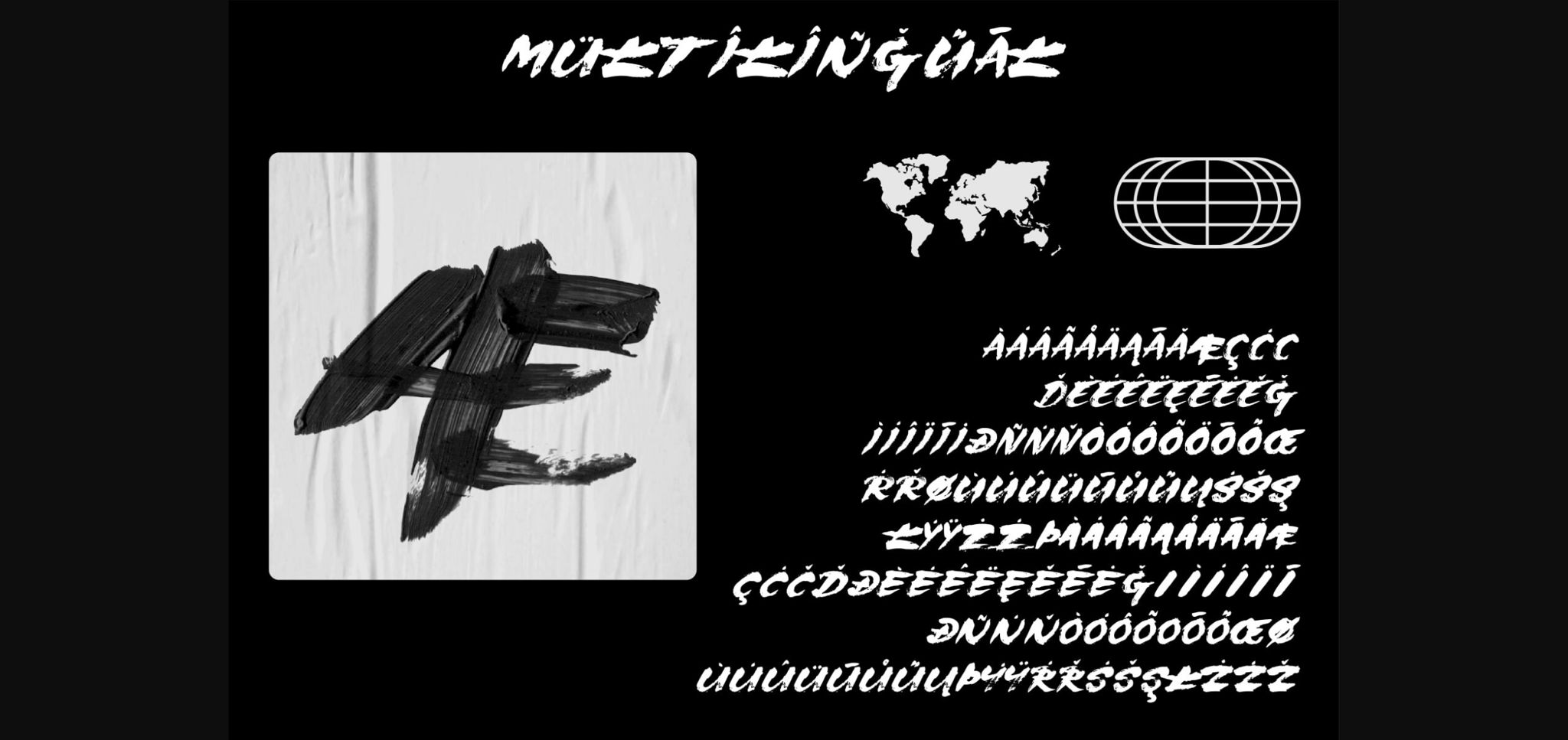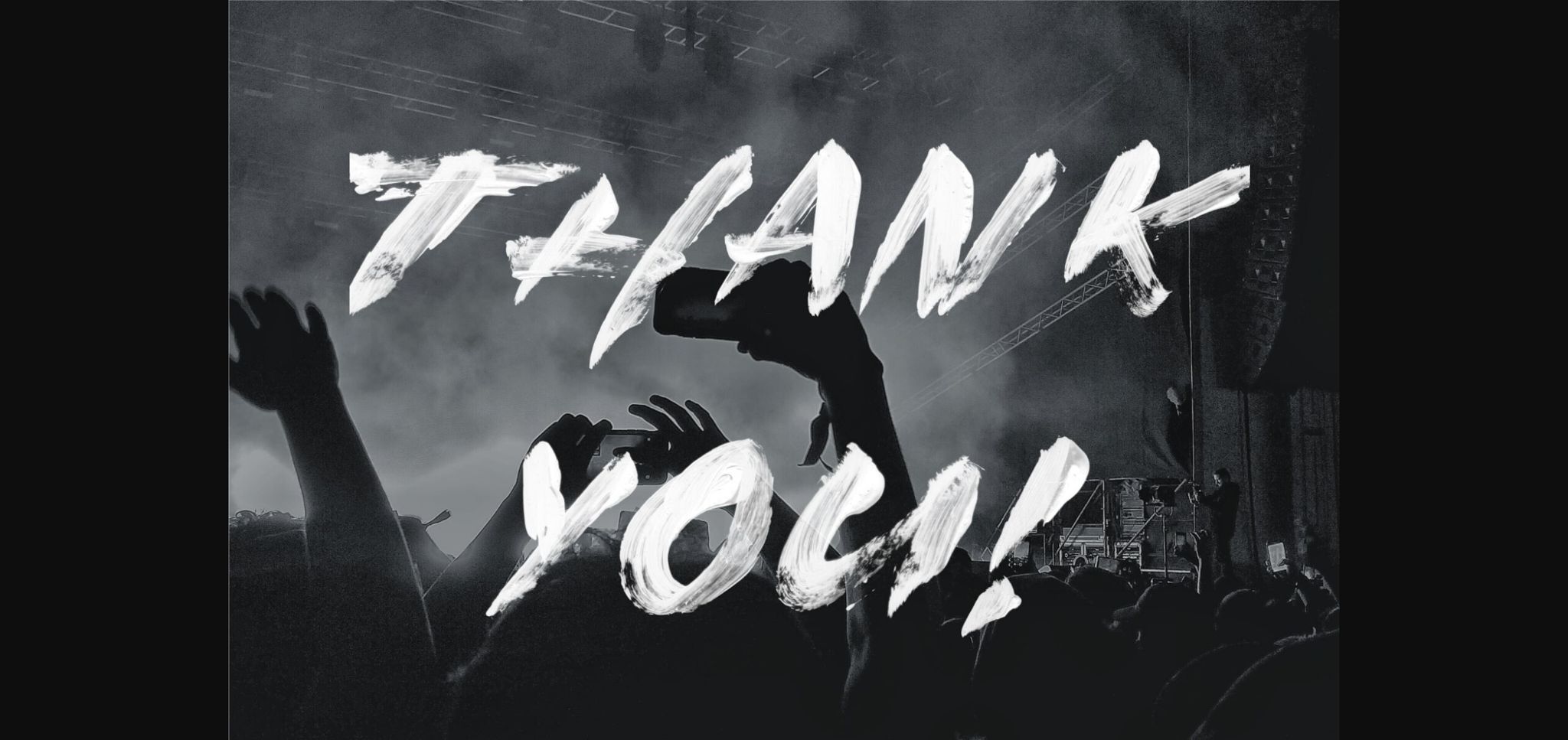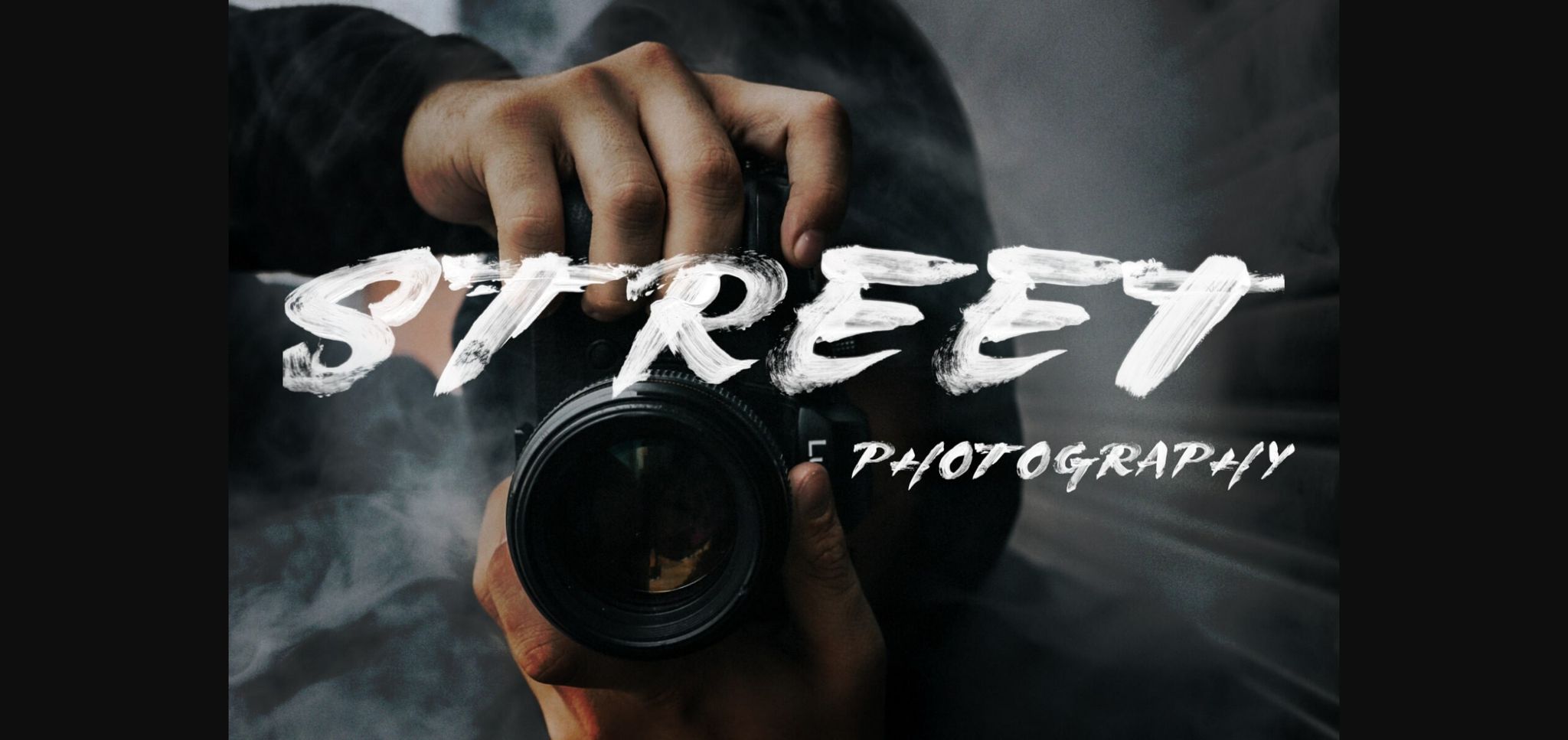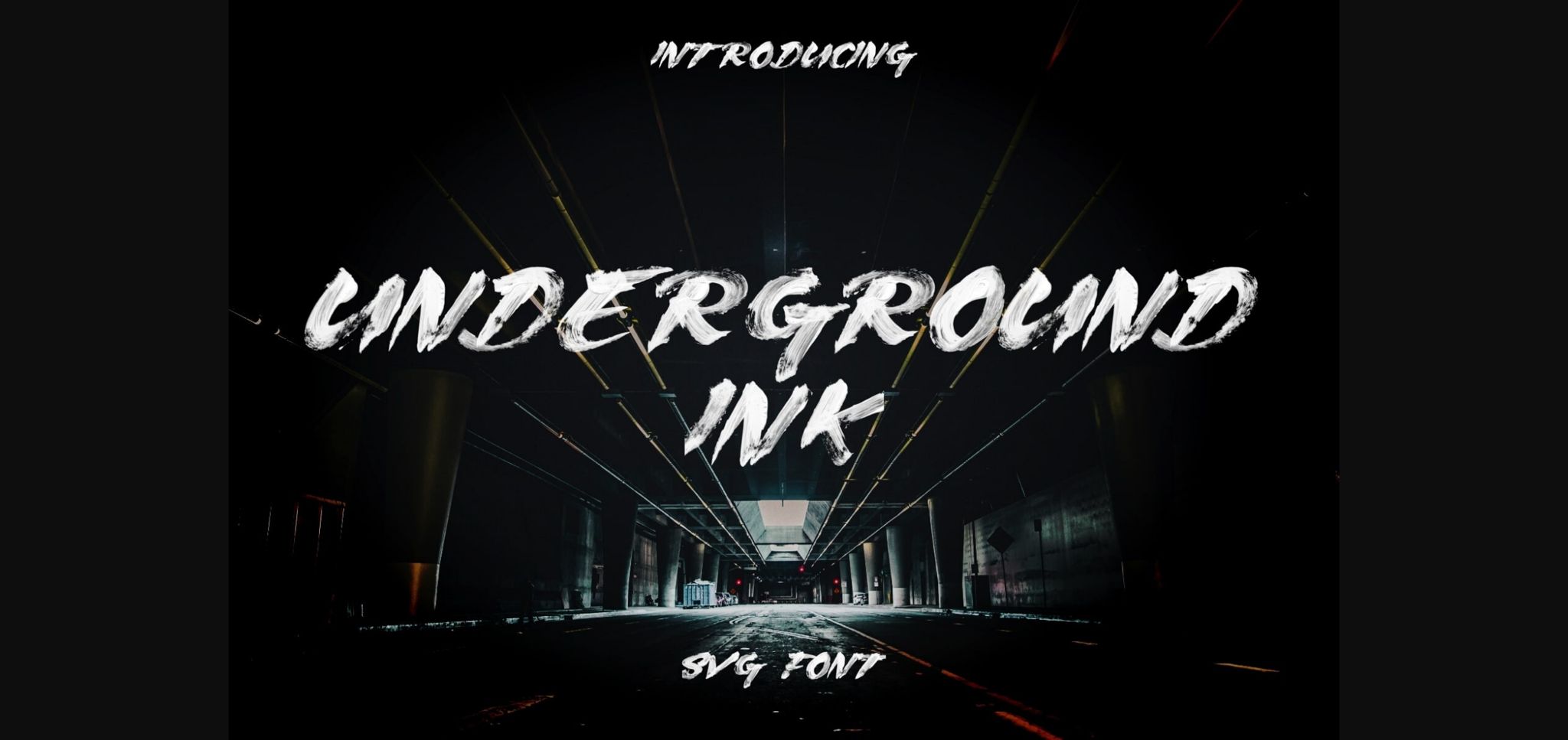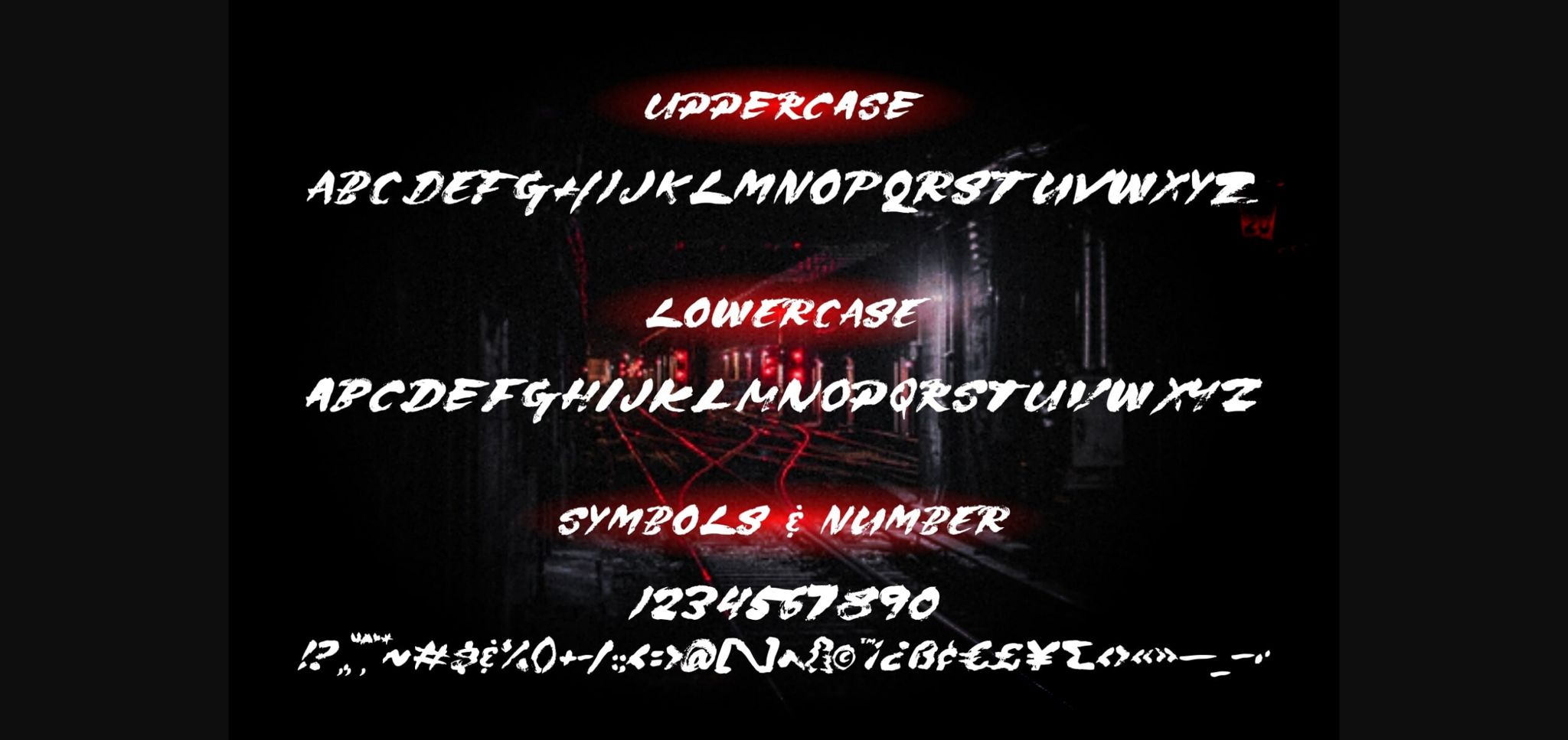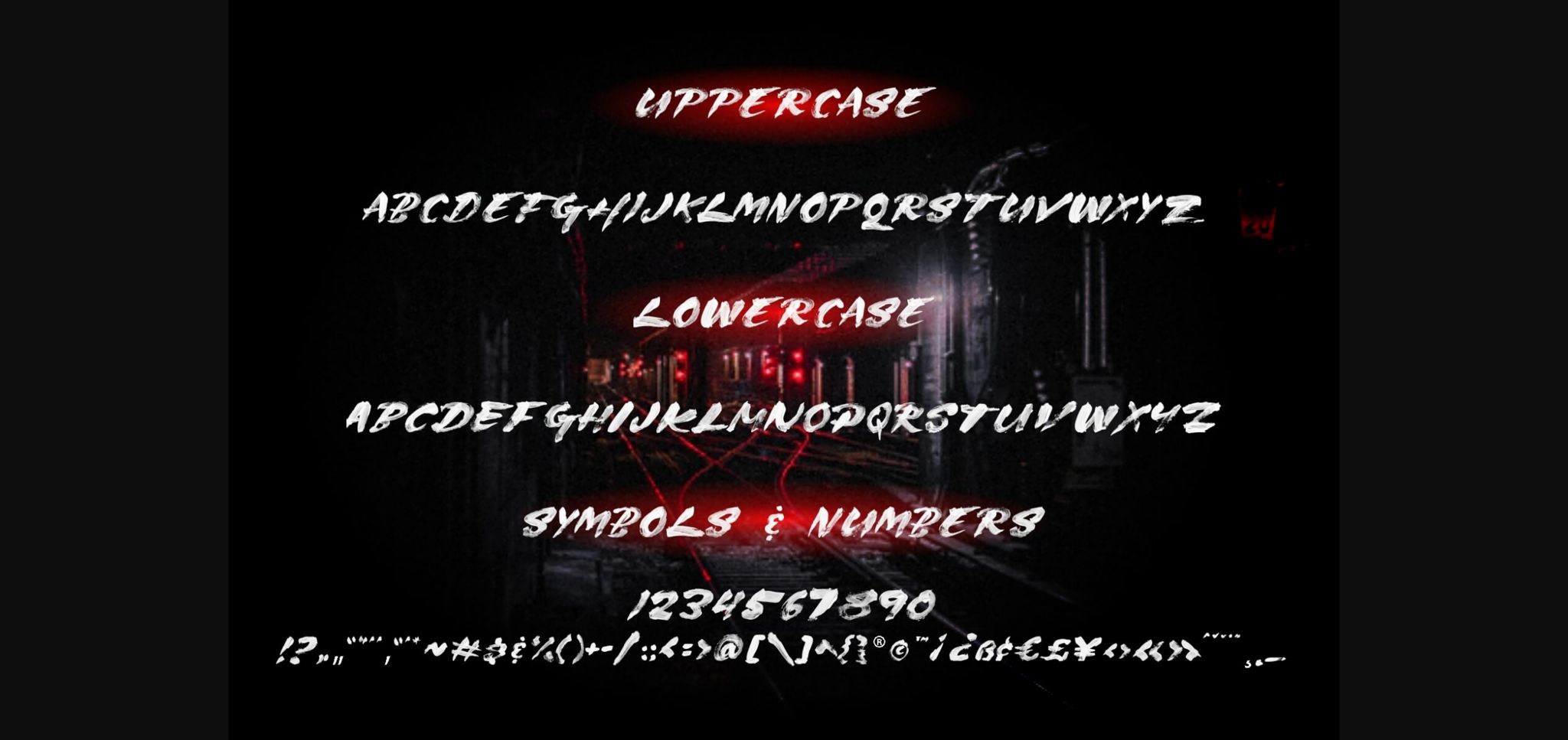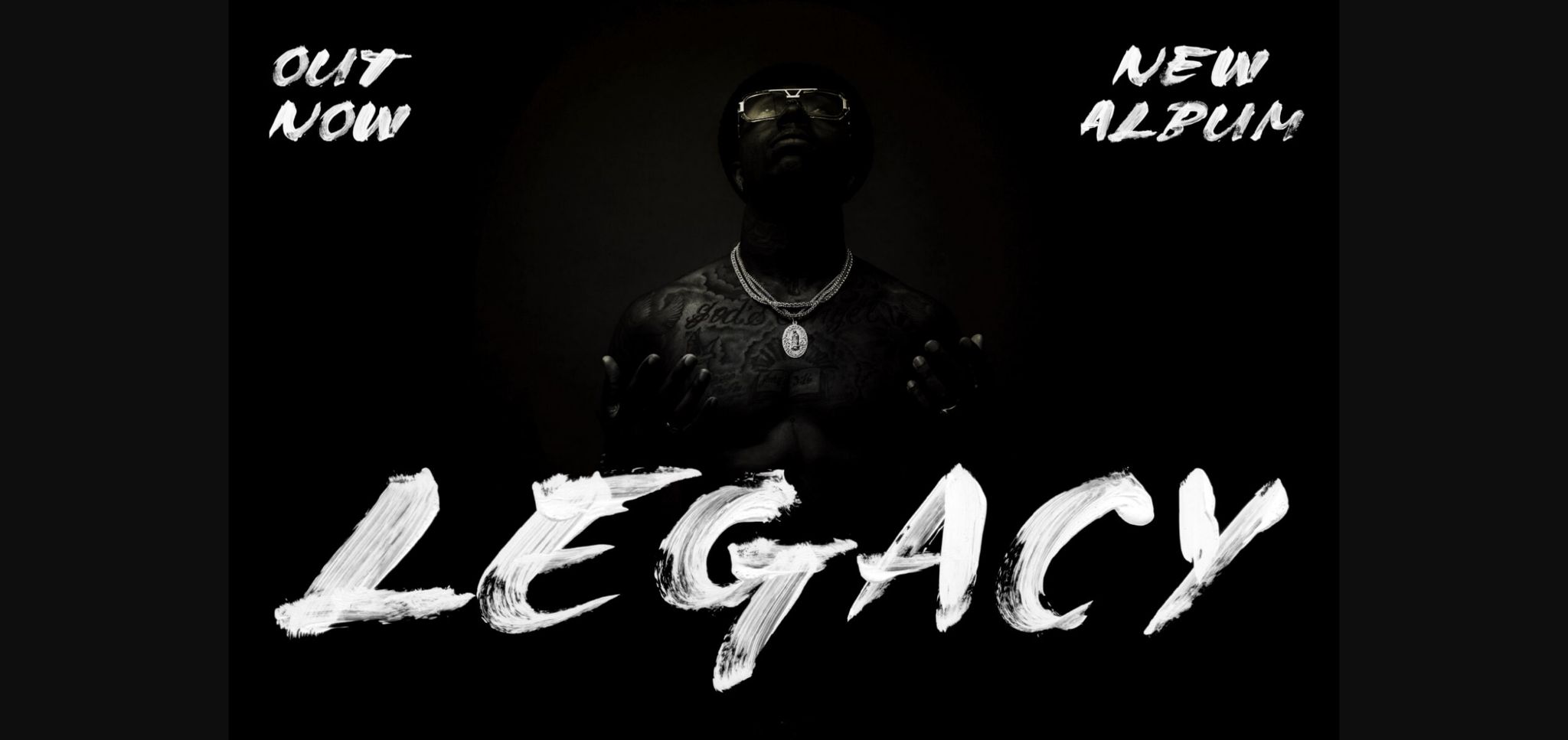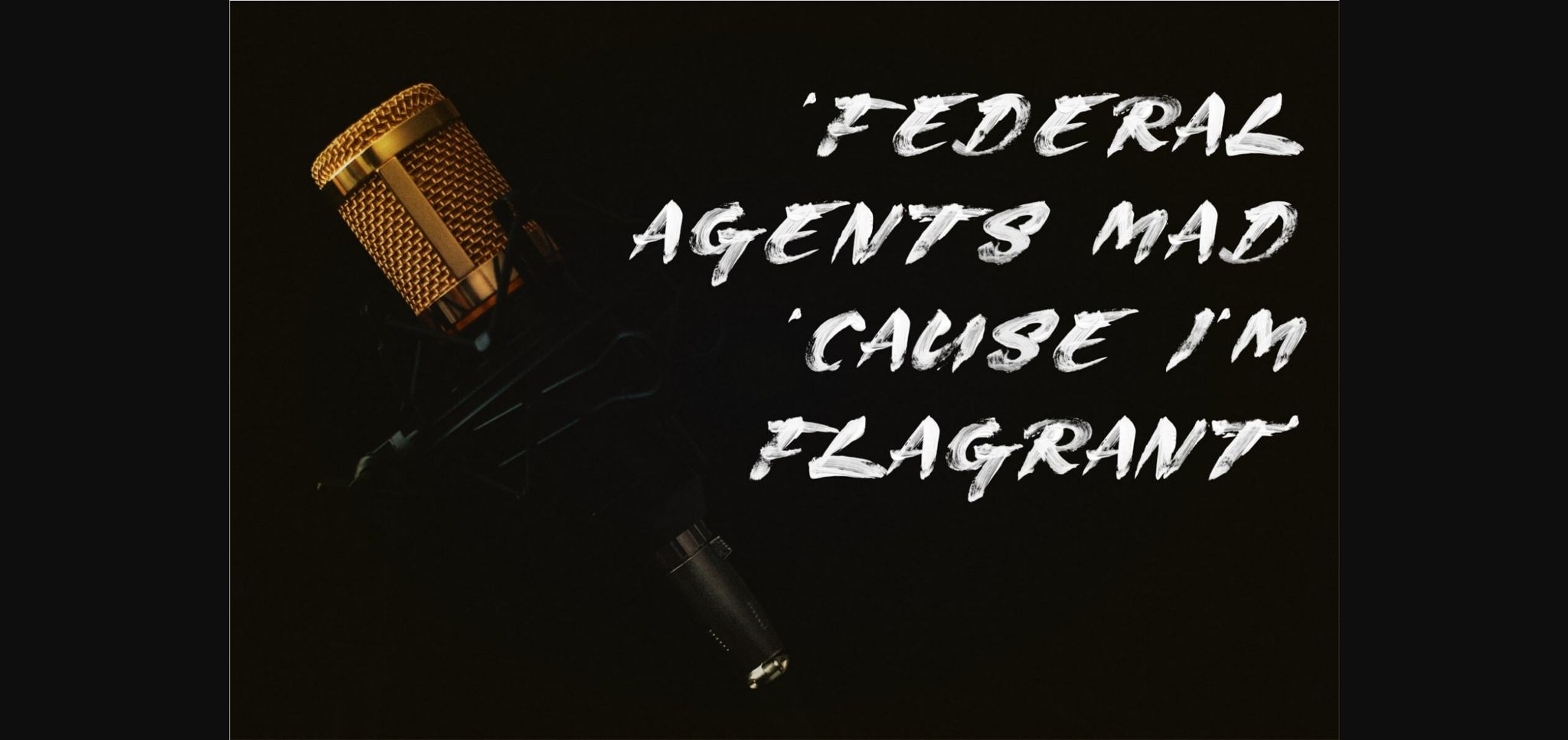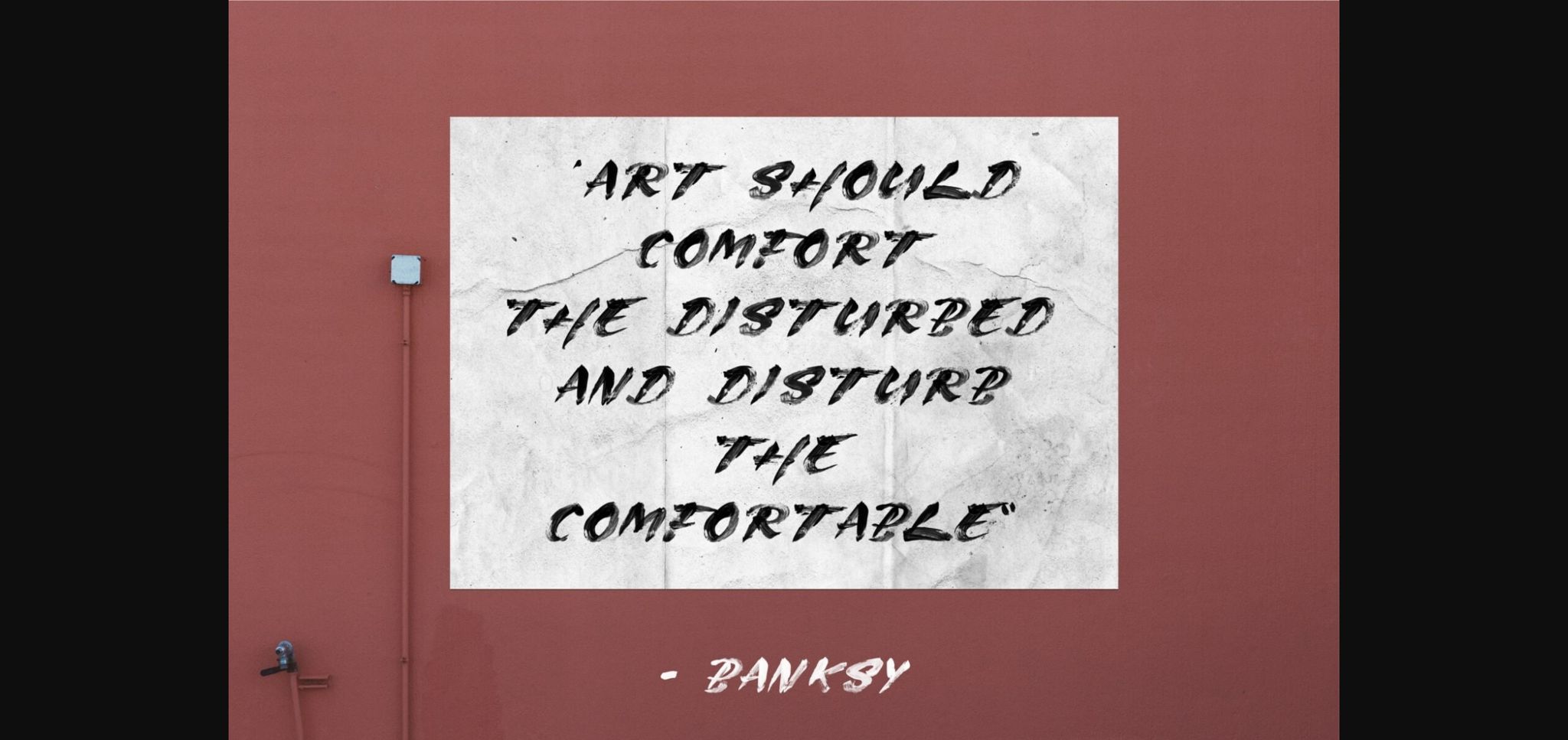
Underground Ink Font
About Underground Ink Font
Underground Ink is a hand painted bold sans serif font. It features a unique italic stance and extremely degraded splotchy characters. Underground Ink is great for any project that requires grungy or gritty type elements.
Underground Ink includes an SVG version, and also a regular vector version.